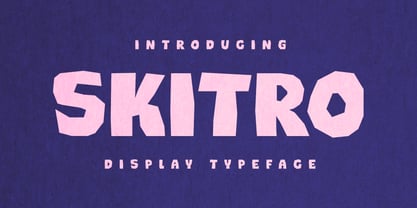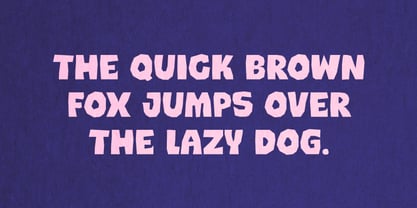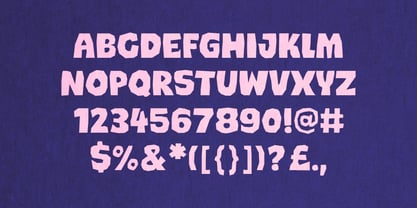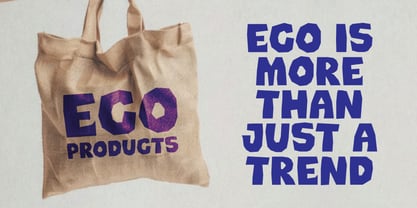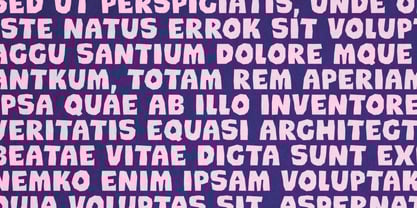
Skitro
by ESEM Type
The Skitro Font Family was designed by Szymon Mandziarz and published by ESEM Type. Skitro contains 1 styles. More about this family
Skitro is a display font cut from paper. It is composed in capital letters. It contains 236 glyphs. The font attracts the attention of recipients with its character.
Designers: Szymon Mandziarz
Foundry: ESEM Type
An independent font foundry that was created out of passion for typography and creative needs. The founder and author is Szymon Mandziarz. The beginnings of letter design began many years ago with graffiti. The foundry focuses on the production of modern, unique typefaces with a clear form and details that attract attention. The font foundry aims at providing its customers with high quality fonts that stand out with their original style.